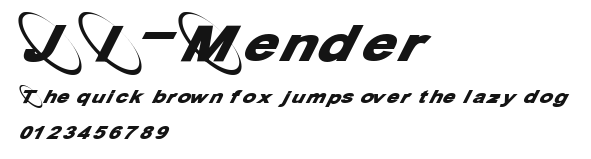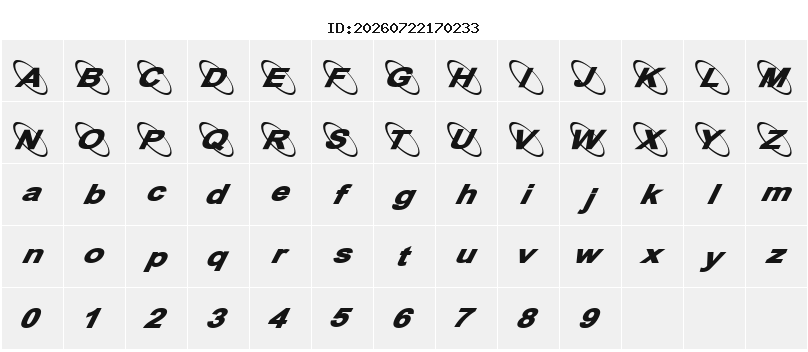
• Font Name: JI-Mender
• Designer: JupiterImages
JI-Mender.ttf is a modern, elegant sans-serif font designed for ultimate readability and visual harmony. Perfect for branding, headlines, web design, and print materials.